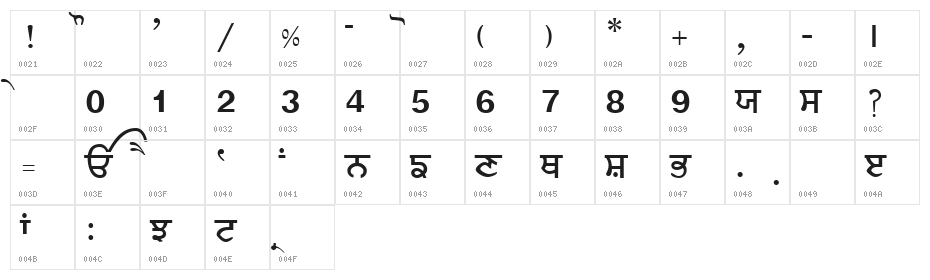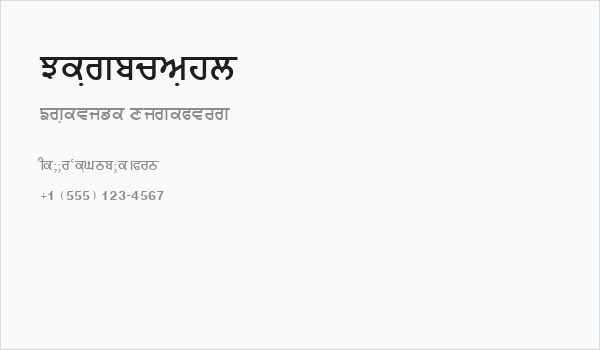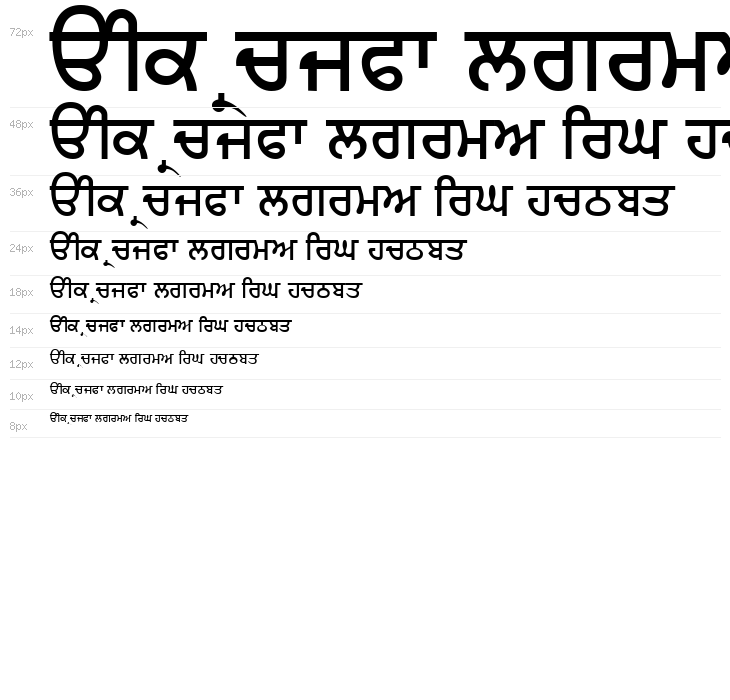
Merapunjab Font
| Caso de uso | Headlines, Titles, Digital content |
| Proyectos propuestos | Ideal for Punjabi language publications, educational materials, and digital content requiring Gurmukhi script. |